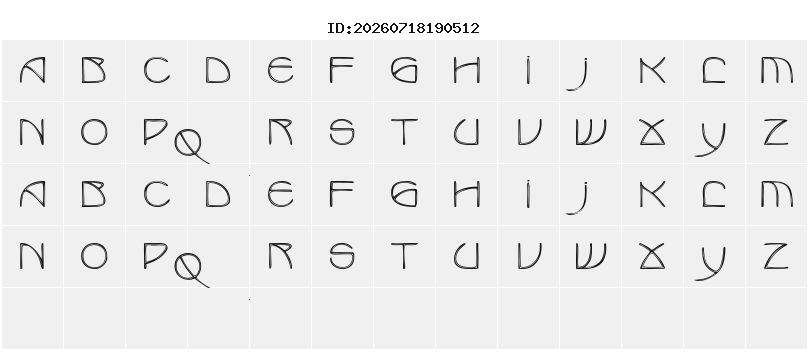
CroateDisplayCaps.ttf is a modern, elegant sans-serif font designed for ultimate readability and visual harmony. Perfect for branding, headlines, web design, and print materials.